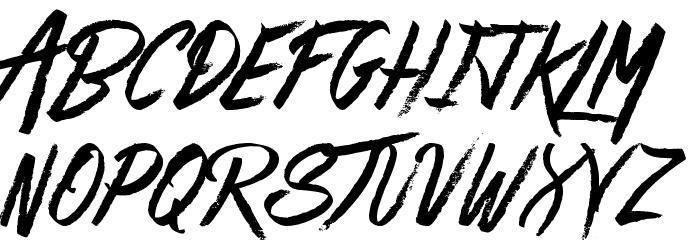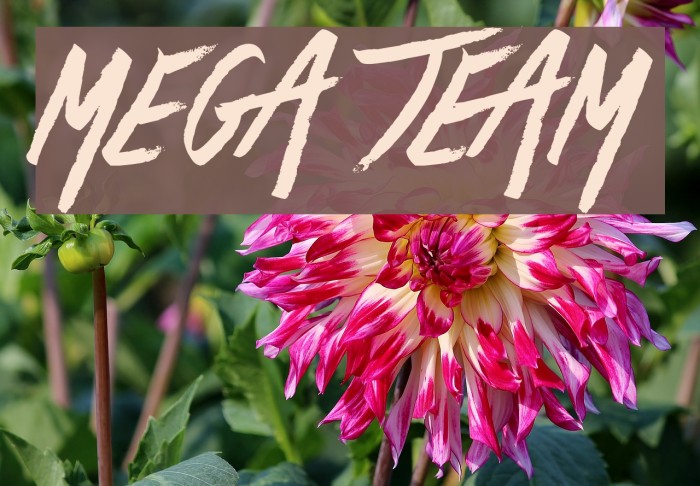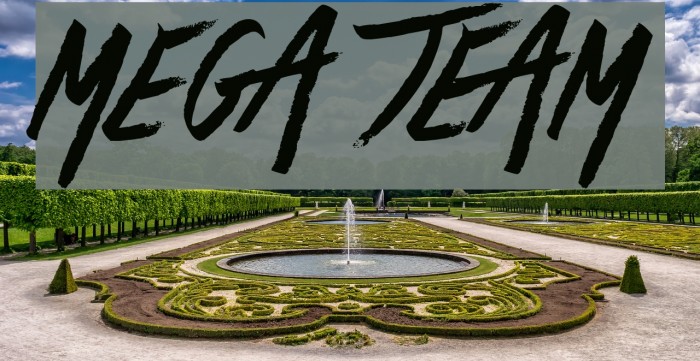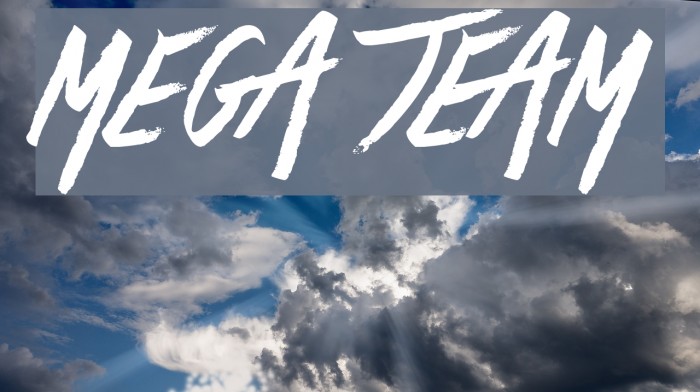
Mega Team Font
This font features a bold and dynamic brush script style, characterized by its energetic and expressive strokes. The letters are crafted with a sense of motion and fluidity, giving them a lively and artistic appearance. The uppercase and lowercase letters maintain a consistent style, with some letters having unique, exaggerated flourishes that add to the overall aesthetic. The font's rough texture and irregular edges contribute to its handmade, authentic feel, making it ideal for designs that require a personal touch. The numerals and special characters are designed to match the bold and expressive nature of the alphabet, ensuring a cohesive look across all text elements.
A bold, dynamic brush script with expressive, fluid strokes and a handmade feel.
- Proposed Projects: Ideal for branding, posters, album covers, and any project requiring a bold, artistic touch.